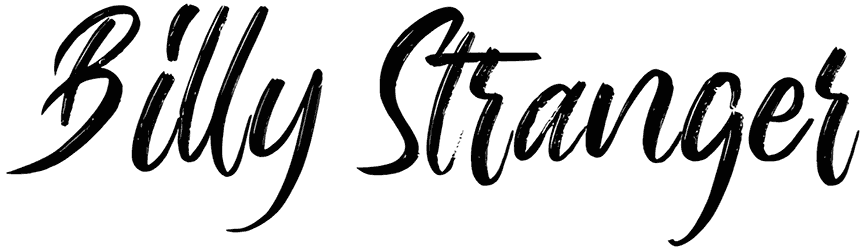
Billy Stranger Font
Billy Stranger’s signature feature is that it adds the personal touch of actual handwriting to any design. This script font is perfect for branding projects and any design that requires feminine and delicate creations.
The look inspired by classical calligraphy, combined with the effects left by the painting brush, can give you an authentic look with hand ink. Then use this brush font for posters, urban advertisements, packaging, and writings that will be more attractive with a soft and simple style.